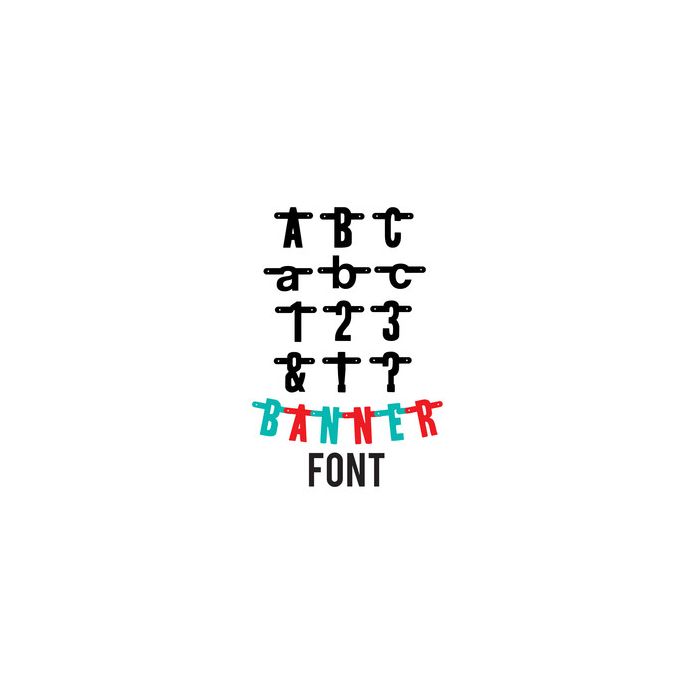
banner font
This banner font includes 65 glyphs(26 uppercase, 26 lowercase, 10 numbers, 3 punctuation) to create decor for your next party, event or the holidays.